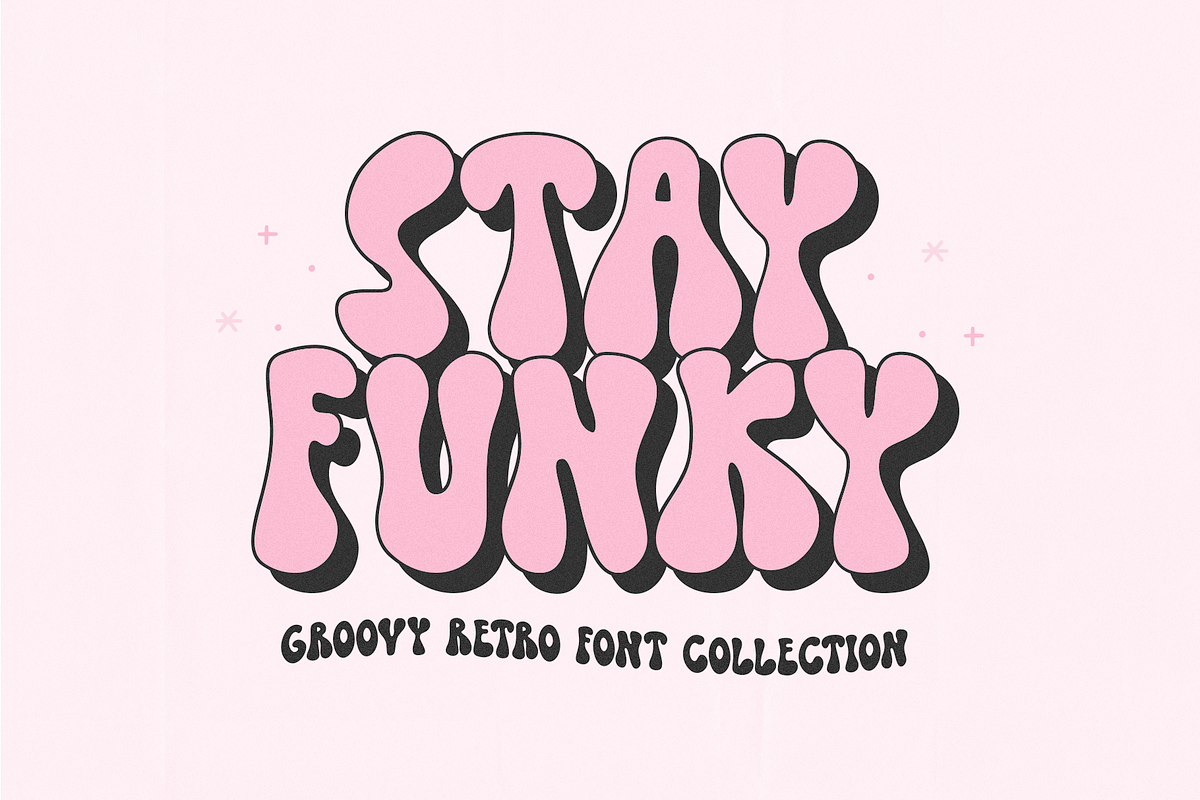
Stay Funky | Retro Font Collection Free Download is a vibrant and nostalgic type collection inspired by the groovy vibes of the '60s, '70s, and '80s. Featuring bold curves, funky letterforms, and vintage flair, this font bundle is perfect for posters, branding, packaging, apparel, album covers, and social media graphics that need a punch of retro energy.
Each font in the collection brings a unique style—ranging from playful bubble letters to bold disco-inspired designs—allowing you to mix, match, and create truly dynamic visuals. Whether you're aiming for full-on vintage or a modern twist on retro, Stay Funky delivers the perfect typographic toolkit.